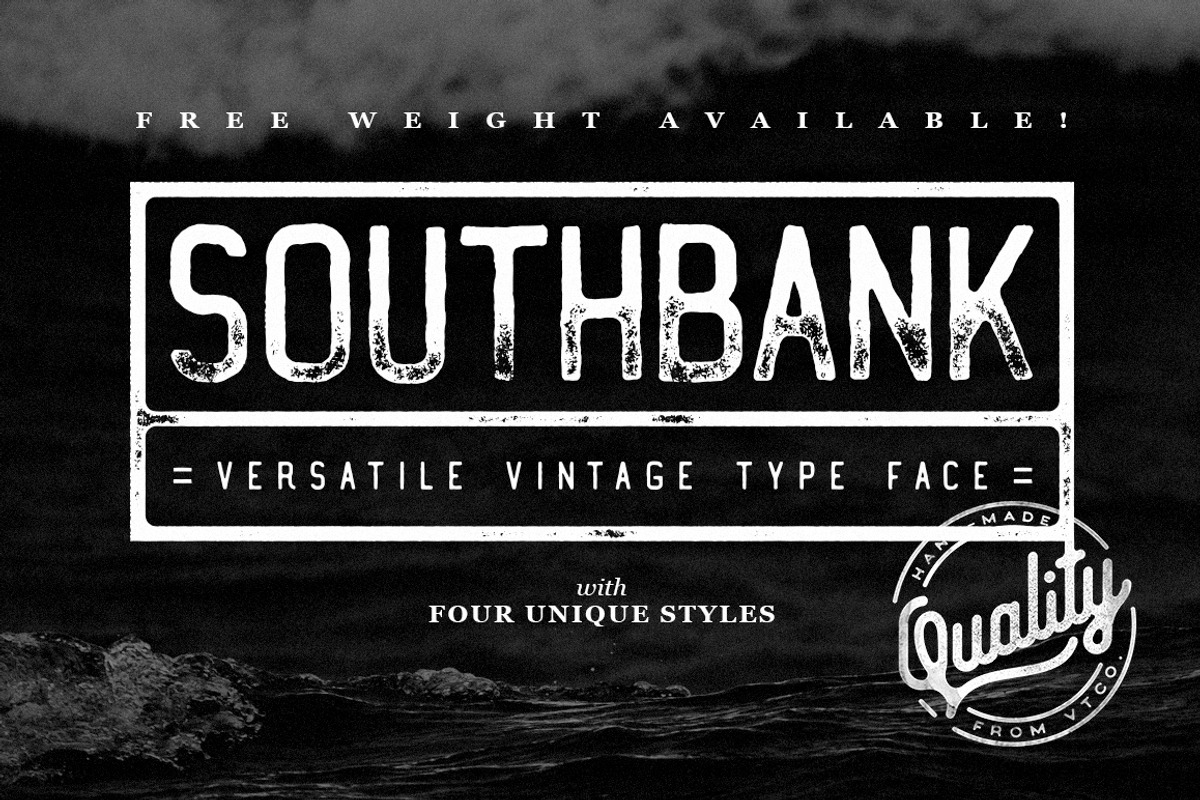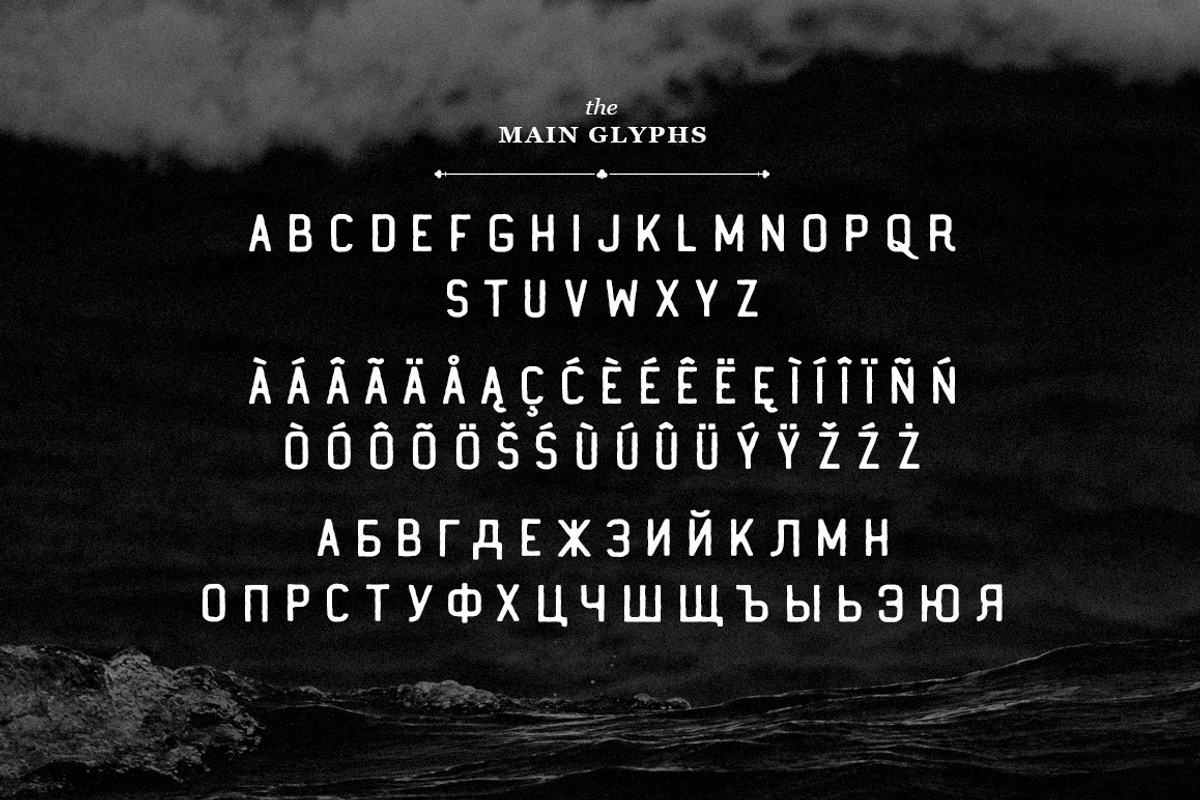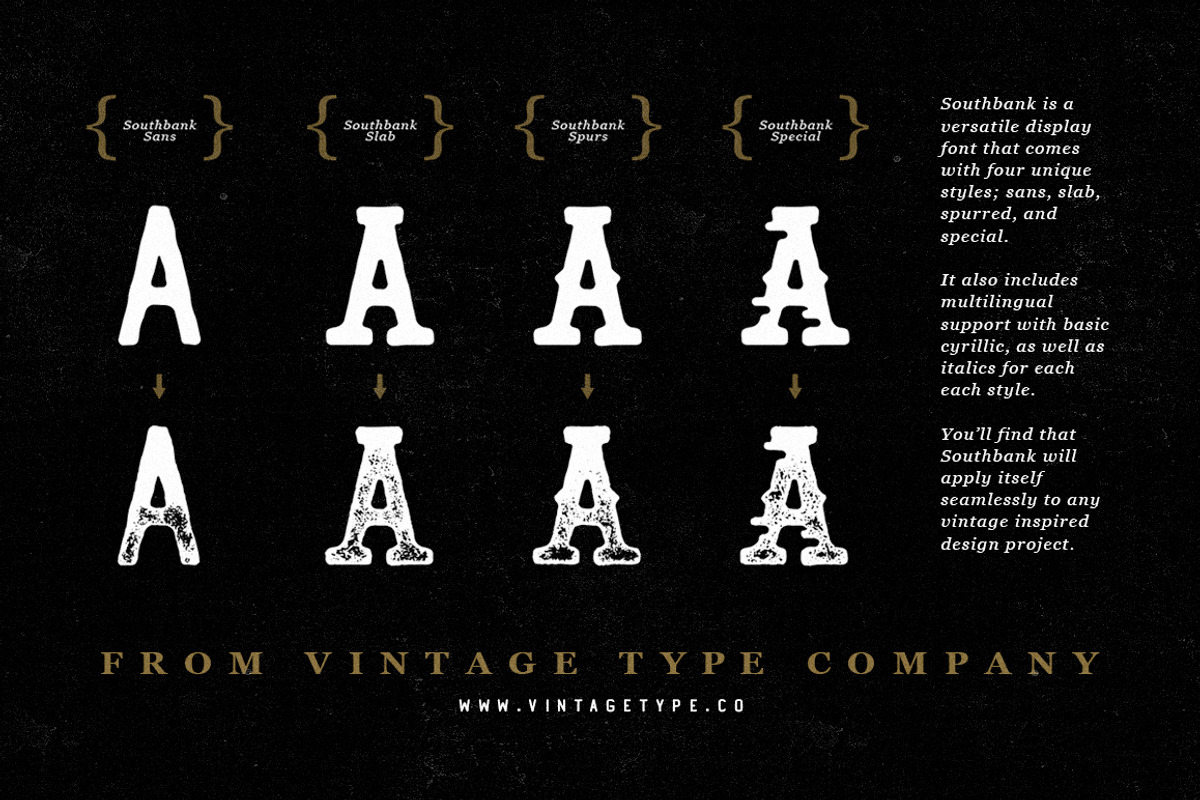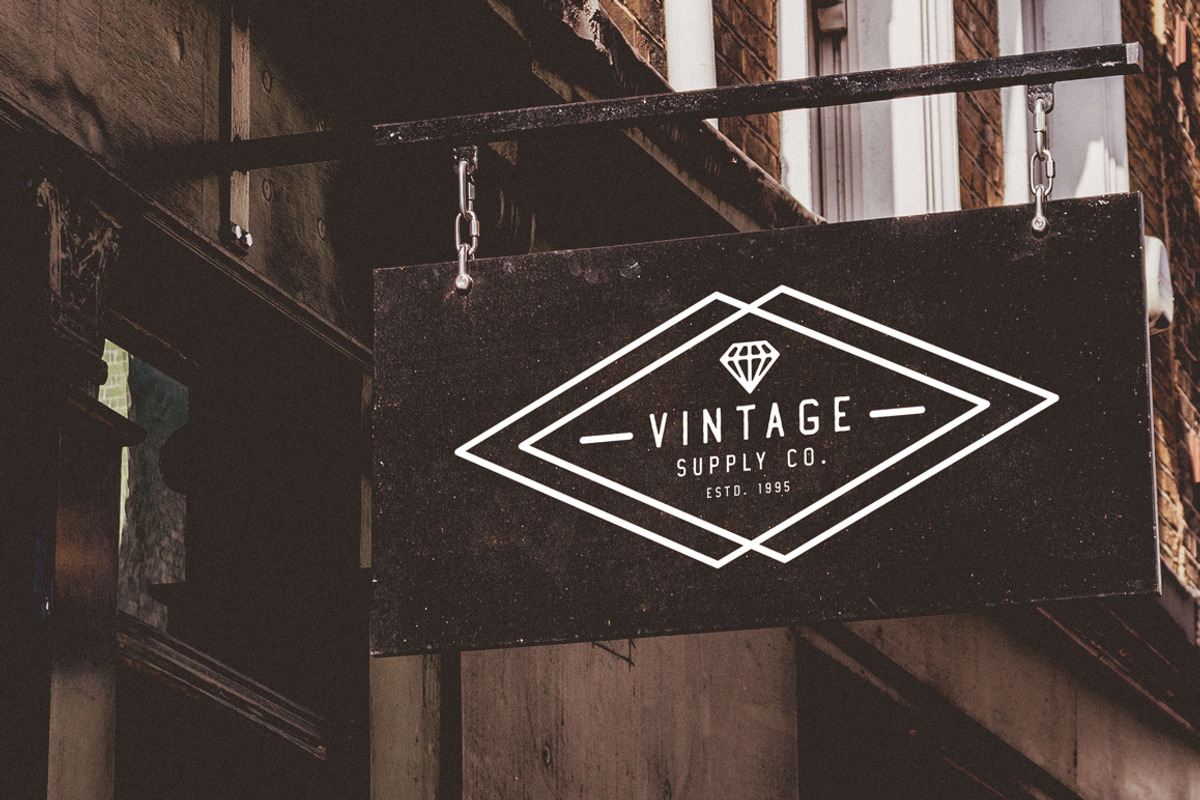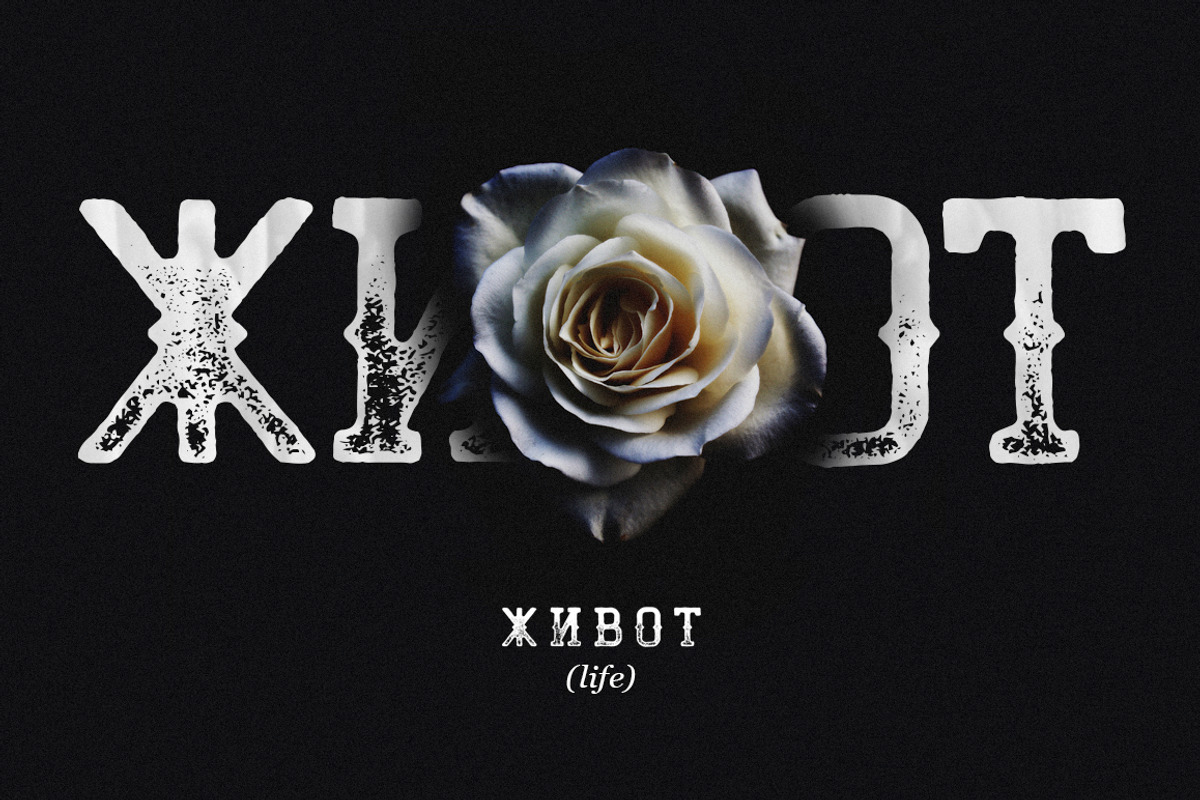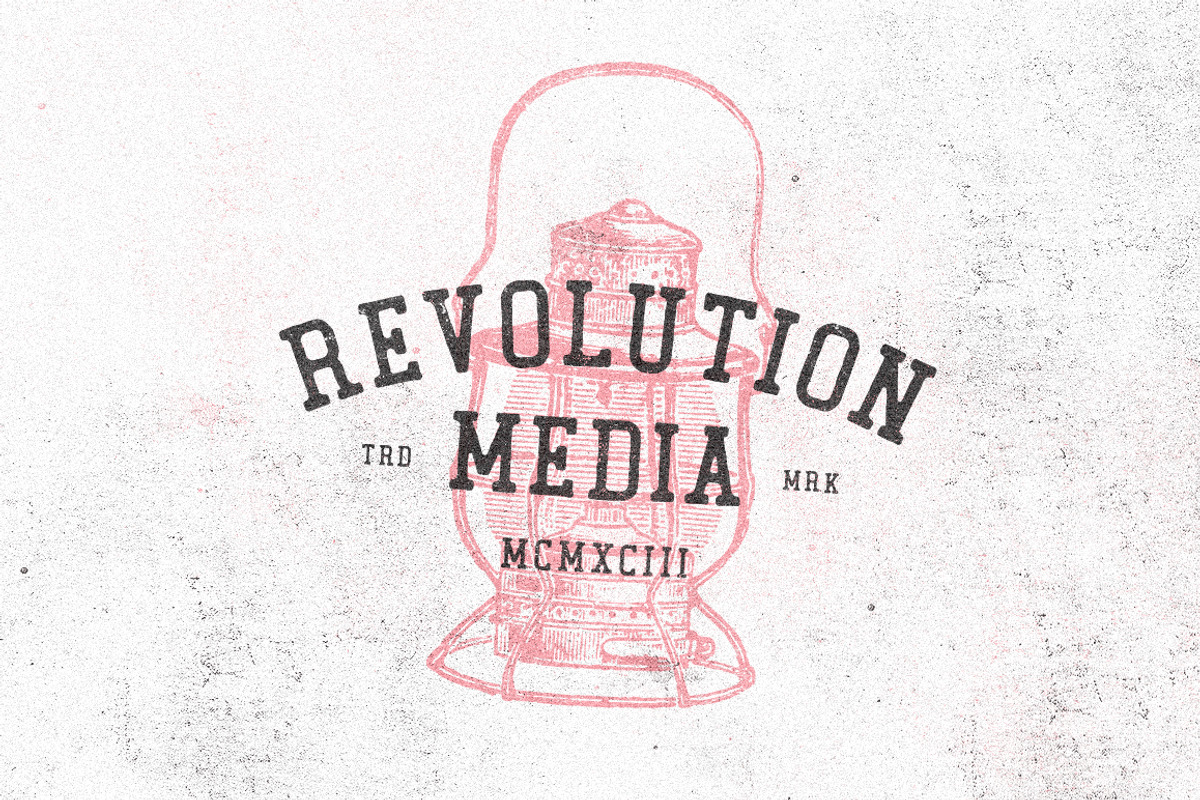
Southbank Display Font
Southbank Display Font by Vintage Type Company is a font selected for branding, posters, packaging, typography.
- and comes with packed 4 unique styles, each with an italic, and inked counterpart.
- Aside from coming in 4 styles, with italics and grungy distressed versions, Southbank Display Font comes with multilingual support for an ar
Southbank Display Font by Vintage Type Company fits naturally into Branding, posters, packaging, typography.